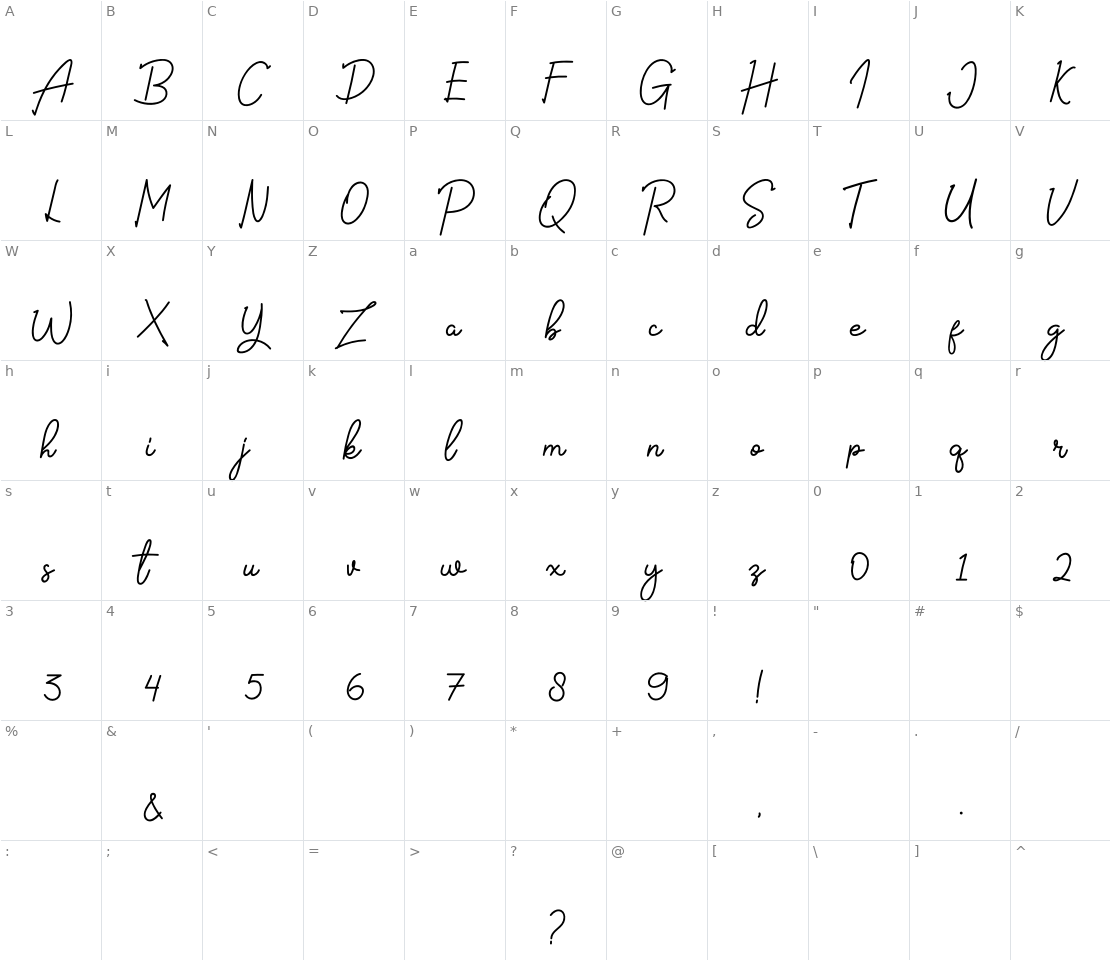
The Signate
The Signate is a thin, monoline cursive from alphArt that captures the fluid rhythm of an actual pen signature. The strokes stay consistent in weight throughout, giving it an elegant but relaxed feel that avoids the stiffness of more formal scripts. It fits naturally into personal branding, logos, and anywhere a handwritten signature touch needs to feel polished yet genuine.